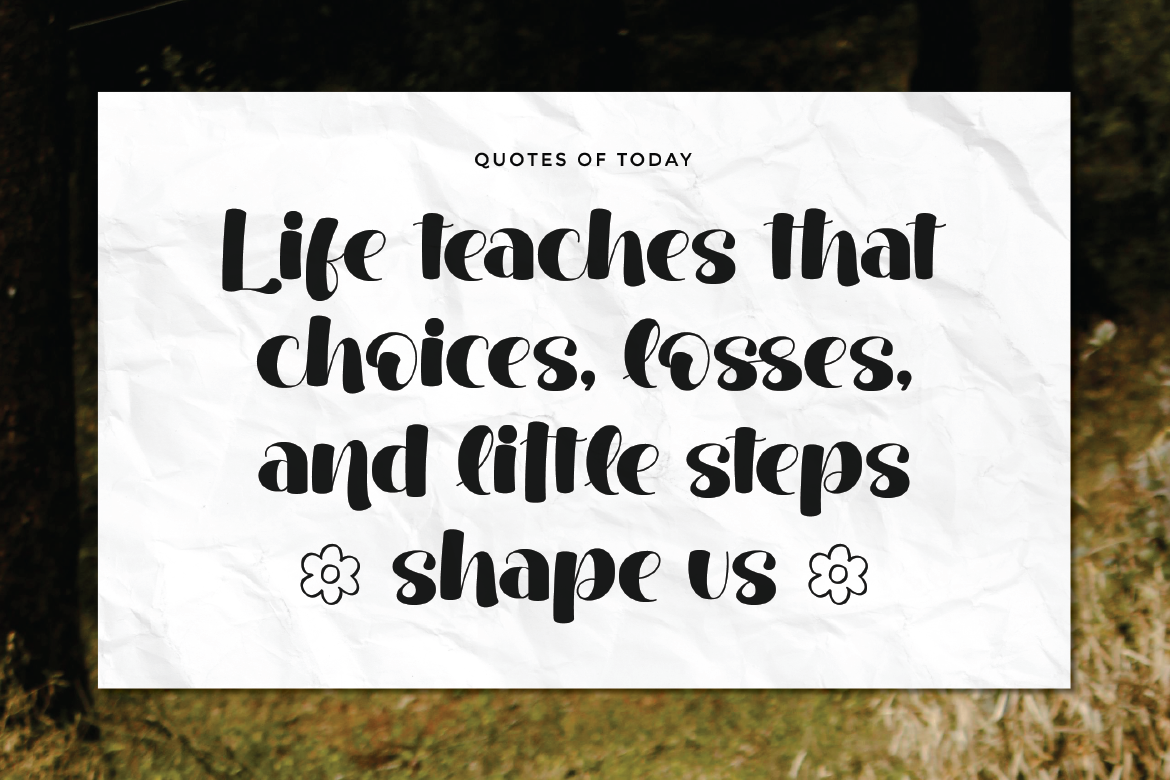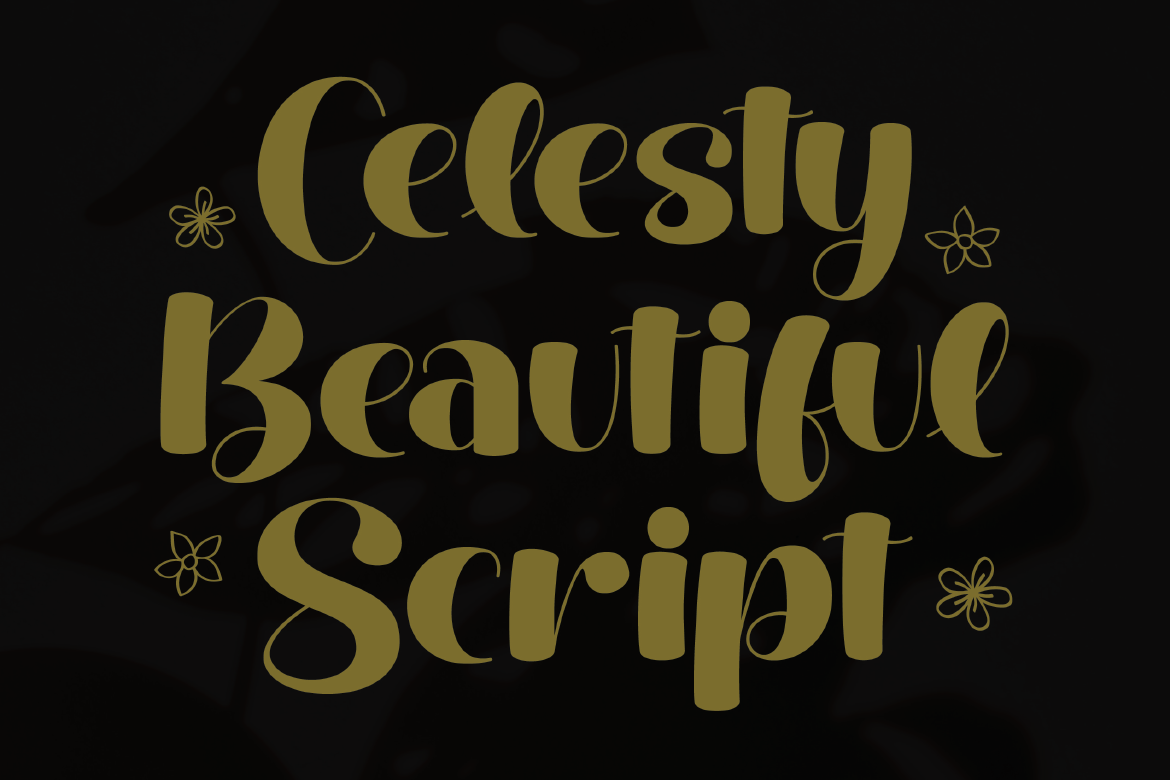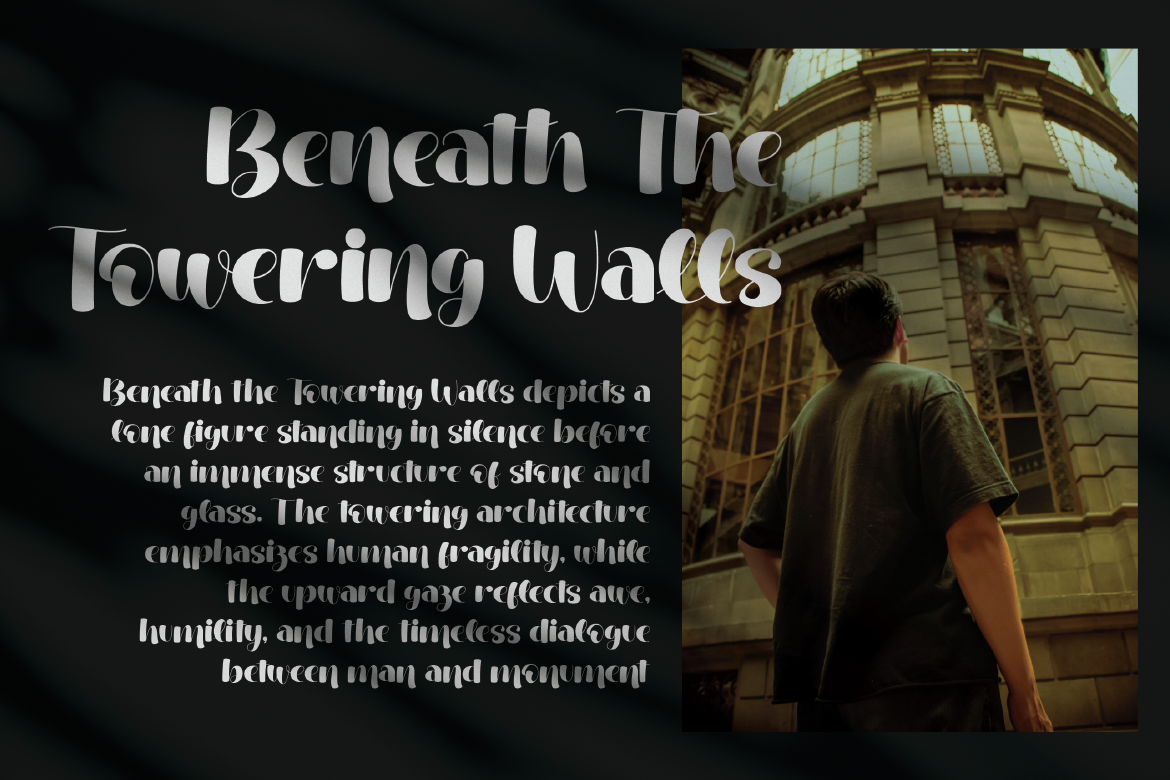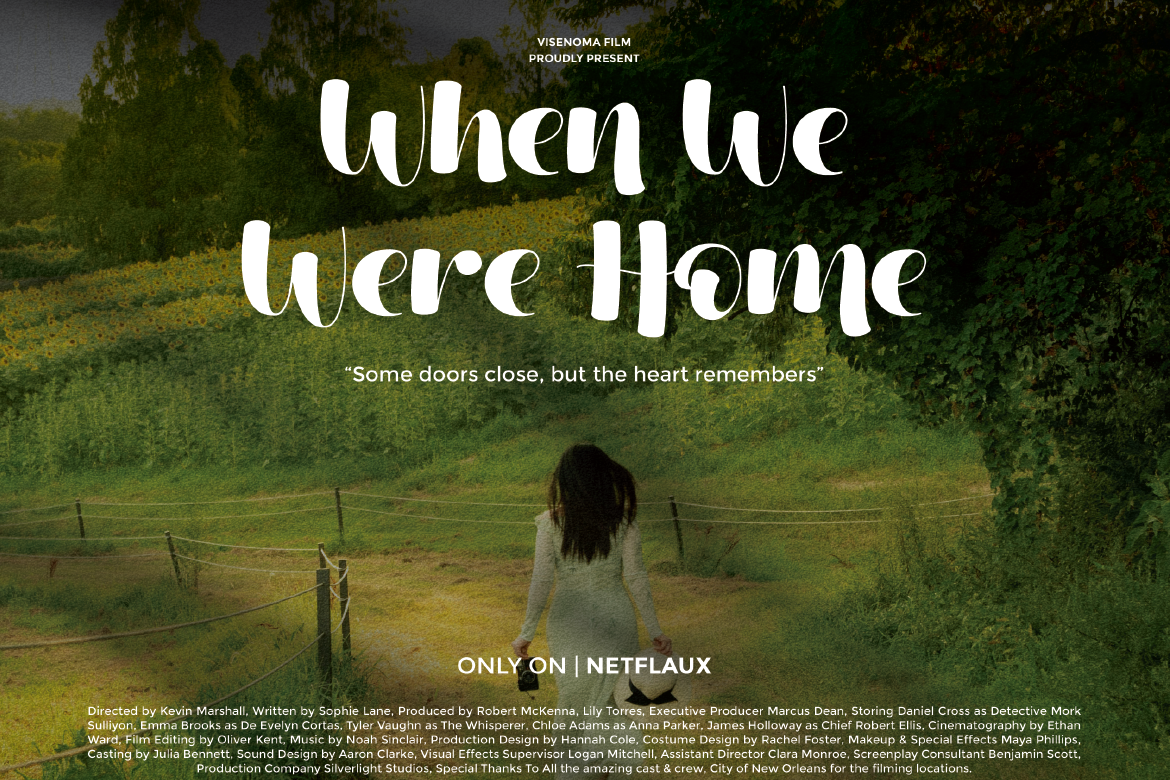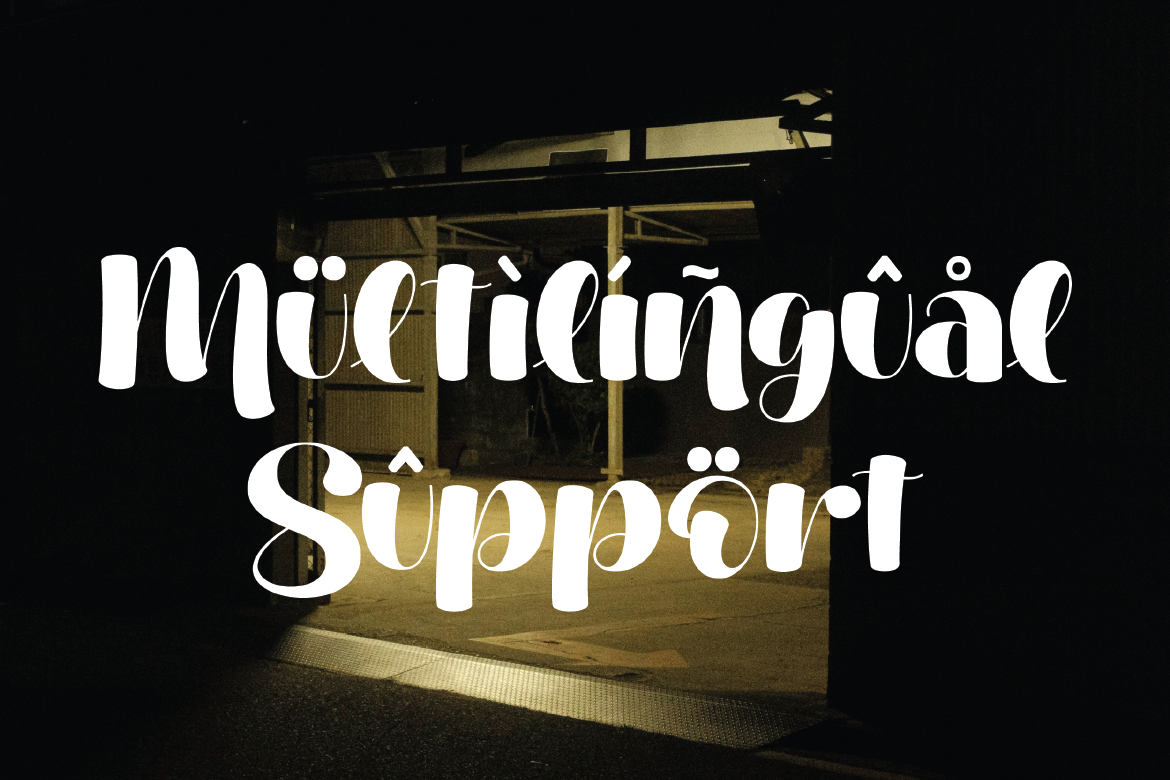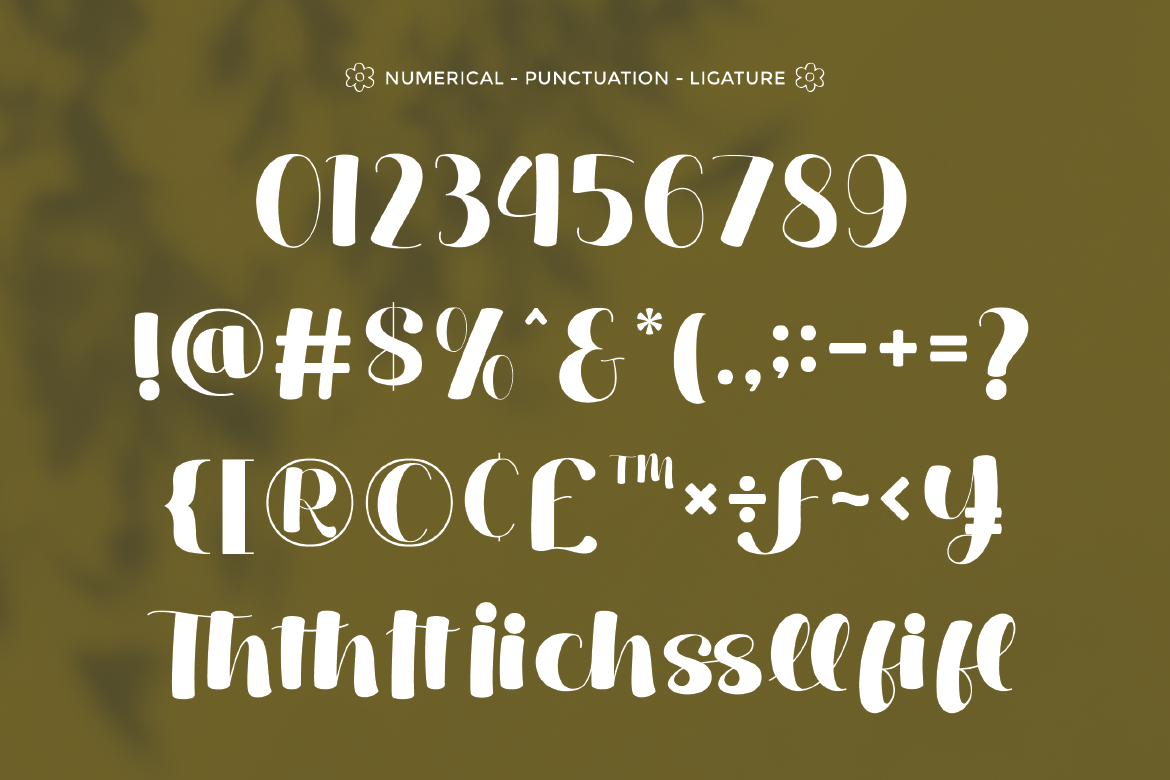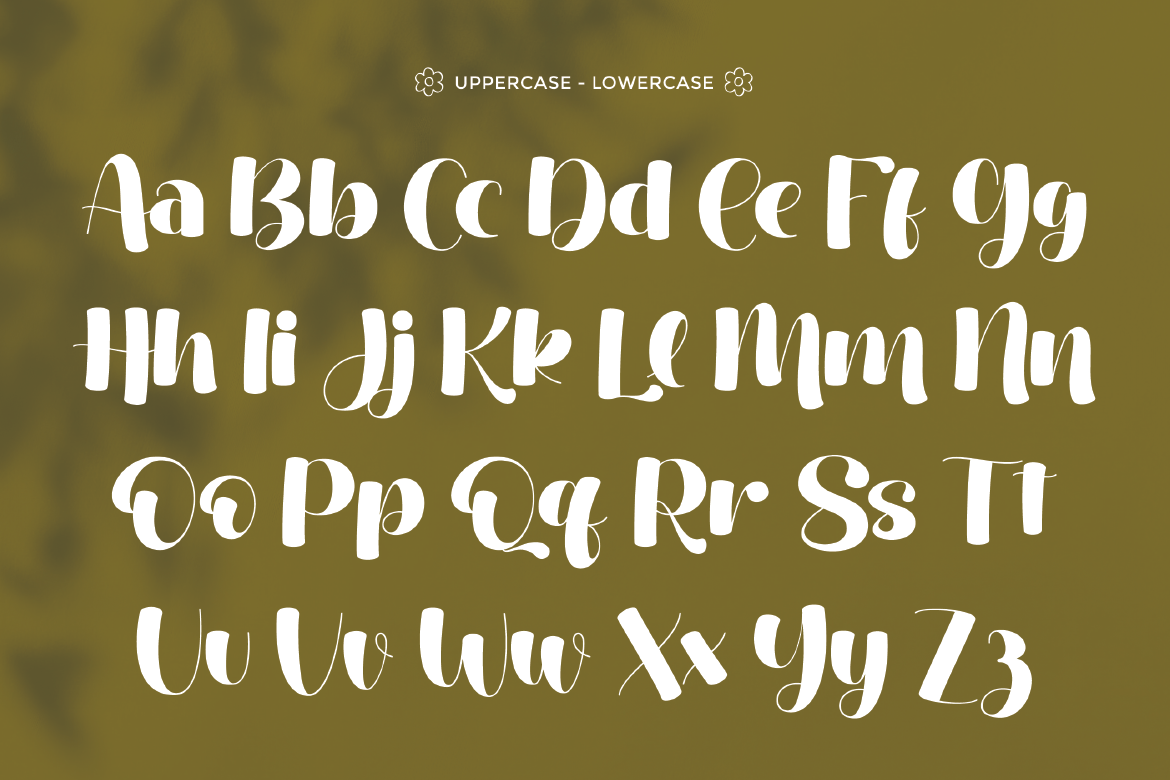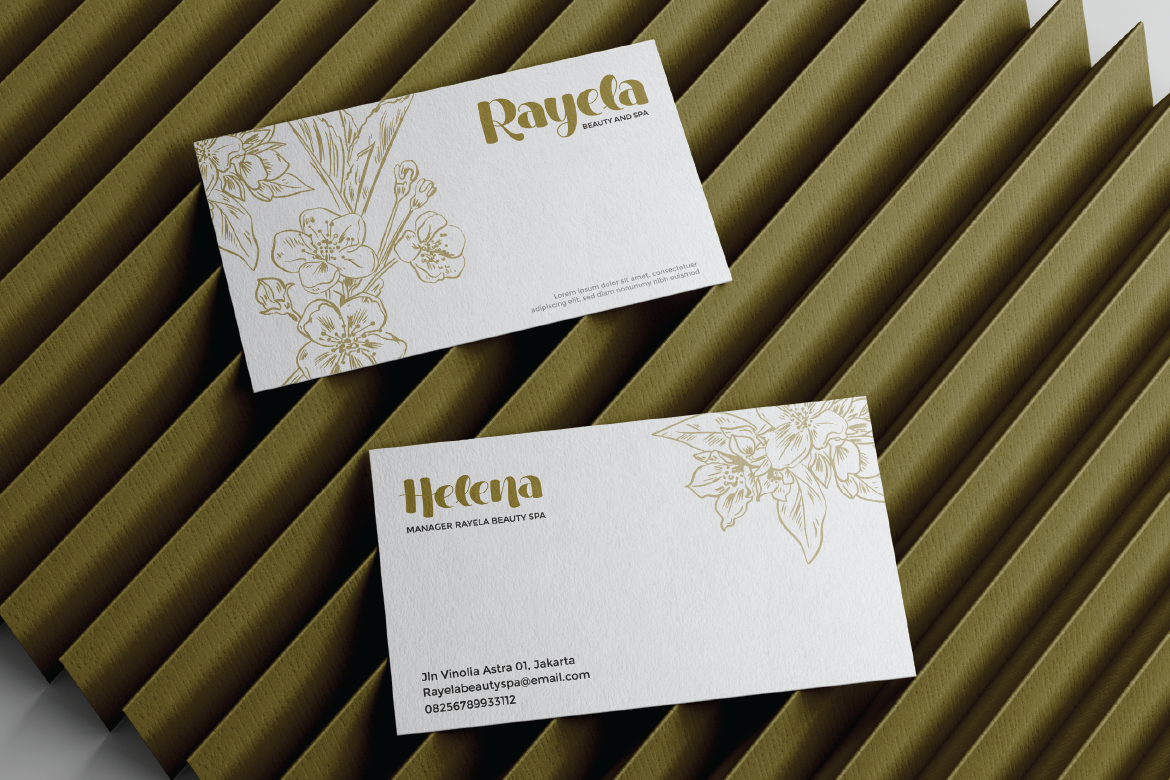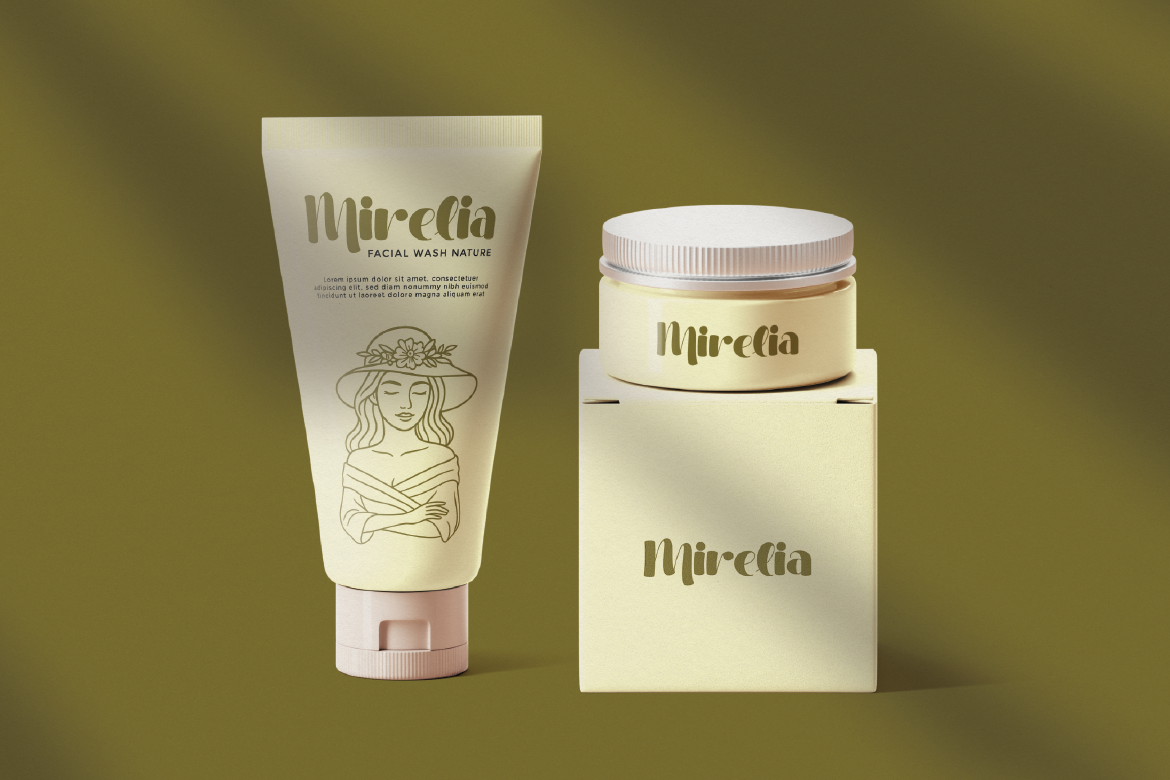
Celesty is a modern script typeface that blends smooth curves with bold elegance, creating a look that feels both contemporary and timeless. Its flowing strokes, graceful contrasts, and artistic presence make it ideal for branding, packaging, invitations, or any design that seeks a refined yet approachable charm. Perfect for beauty products, editorial headlines, or boutique logos, Celesty delivers sophistication, warmth, and versatility in every letter.
• Uppercase alphabet A-Z
• Lowercase alphabet a-z
• Numbers 0-9
• Some punctuation
• Some Alternates and Ligatures